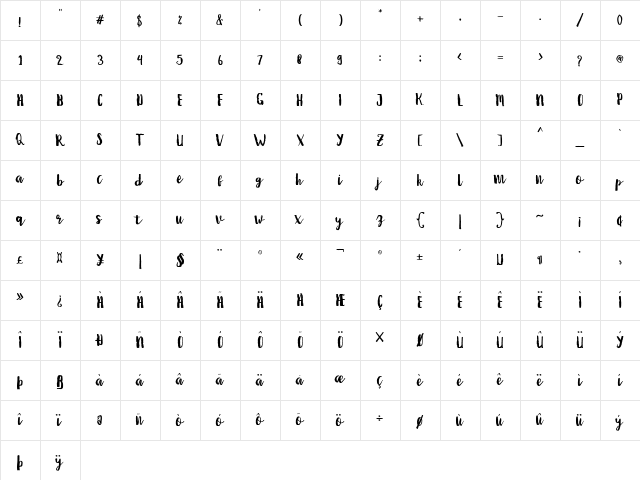
Debt Collectors Regular Free Font
Debt Collectors Regular
Foundry: pholetter_Fajriadi
Designer: pholetter_Fajriadi
Design Context for Debt Collectors
Debt Collectors is a composed and adaptable typeface that performs quietly and consistently across a wide range of design contexts.